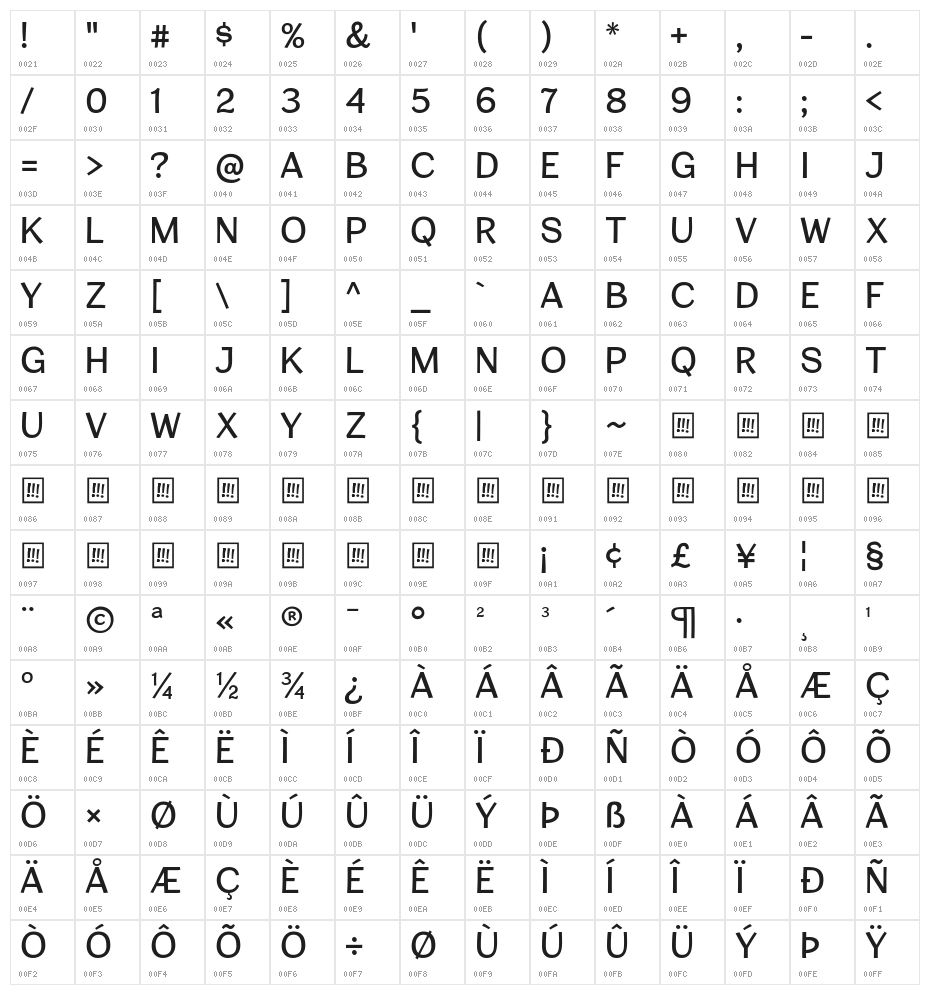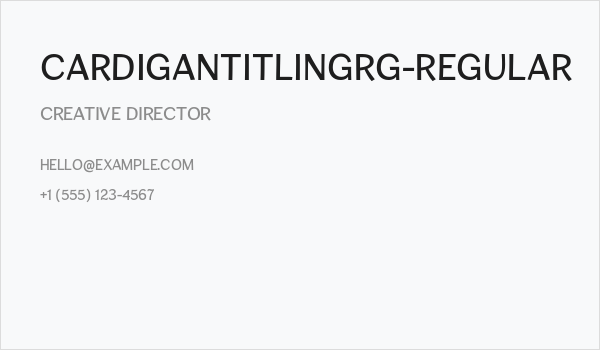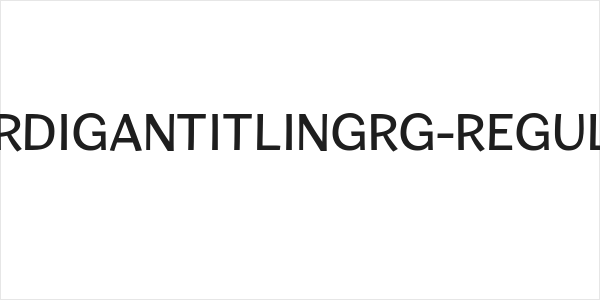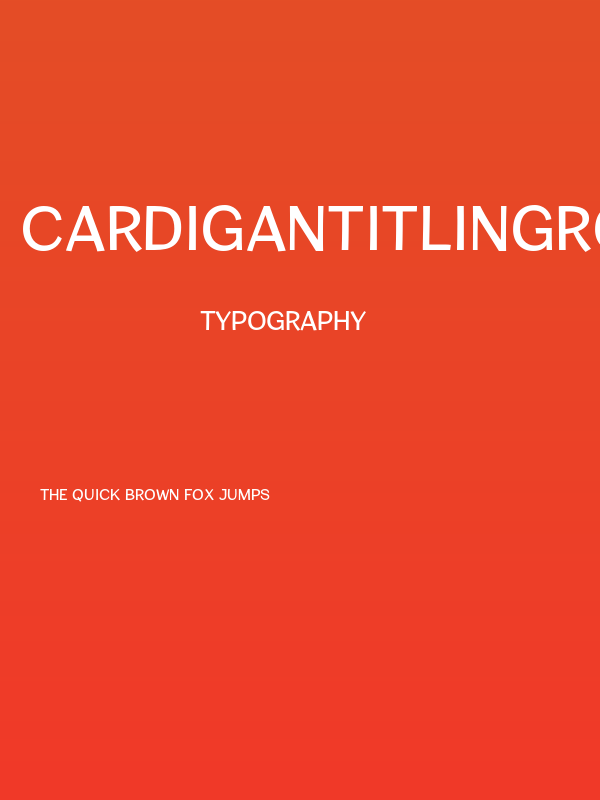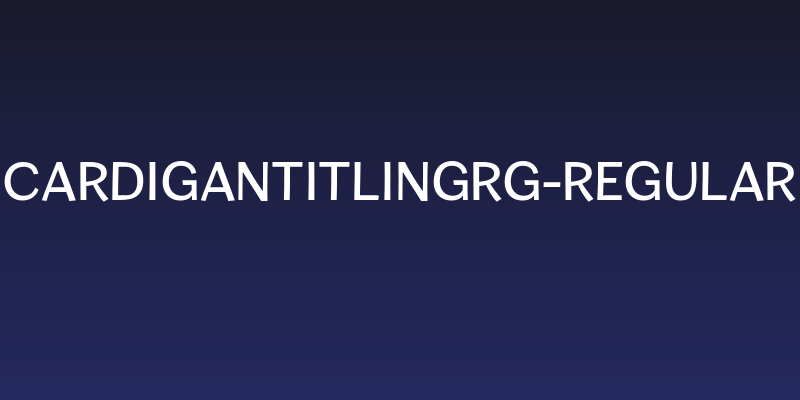
CardiganTitlingRg-Regular Font
CardiganTitlingRg-Regular Description
This font is a clean and modern sans-serif typeface with a straightforward and professional appearance. It features uniform stroke widths, creating a balanced and harmonious look. The characters are well-proportioned, with a slightly condensed width that enhances readability while maintaining a sleek aesthetic. The font includes both uppercase and lowercase letters, numerals, and a variety of special characters, making it versatile for various design needs. Its simplicity and clarity make it suitable for both digital and print media, ensuring legibility across different sizes and resolutions.
| Proposed Projects | Ideal for corporate branding, website headers, editorial layouts, and signage. |